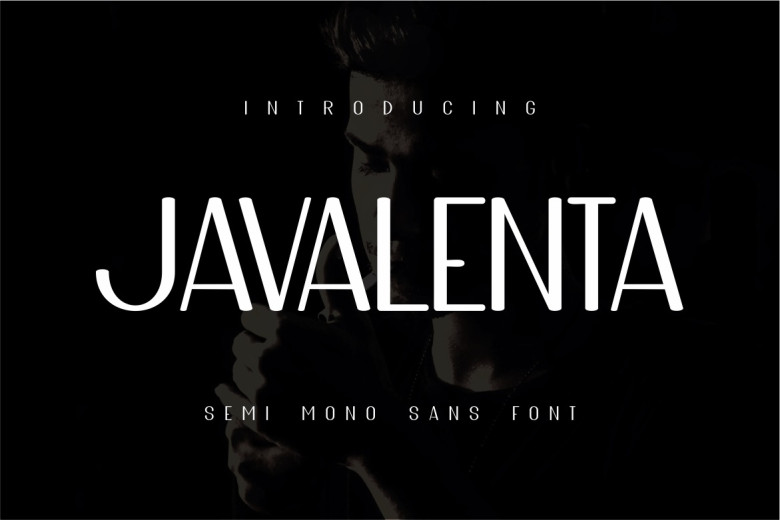
Javalenta Font
Javalenta is a modern, unique sans serif font with well-rounded characters and an easy-to-read appearance. It can solely be used for a book or magazine title and many other creative projects. Javalenta is a modern, unique sans serif font with well-rounded characters and a clear read outlook. It is strictly for a book or magazine title and a wide variety of creative projects.
Javalenta Sans Serif Font